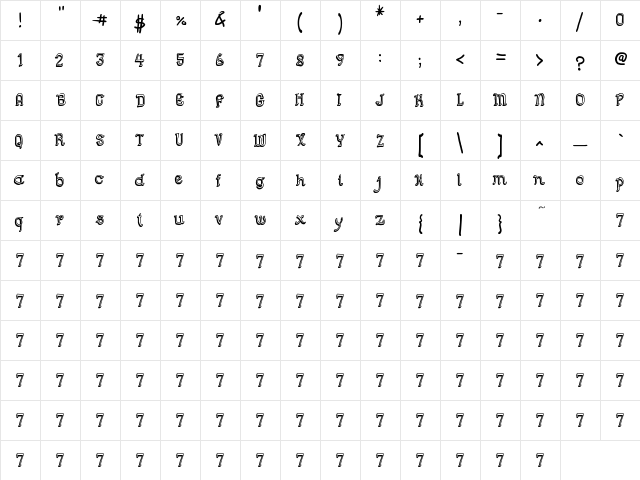
Semi Cursive Gut Regular
| Designer | Galdino Otten |
Design Context for Semi Cursive Gut Typeface
Semi Cursive Gut brings a calligraphic fluidity to the page — its connecting strokes and expressive curves give it an unmistakably human quality.
Font Pairing: Combine Semi Cursive Gut with a simple geometric sans for maximum contrast — the tension between flowing curves and clean structure is a classic typographic pairing.